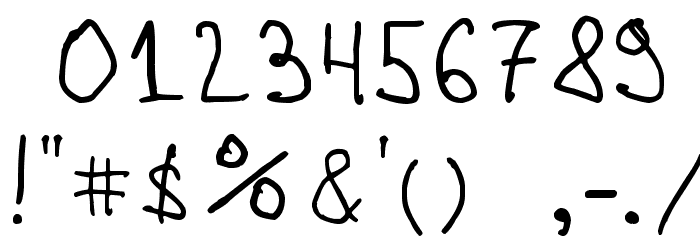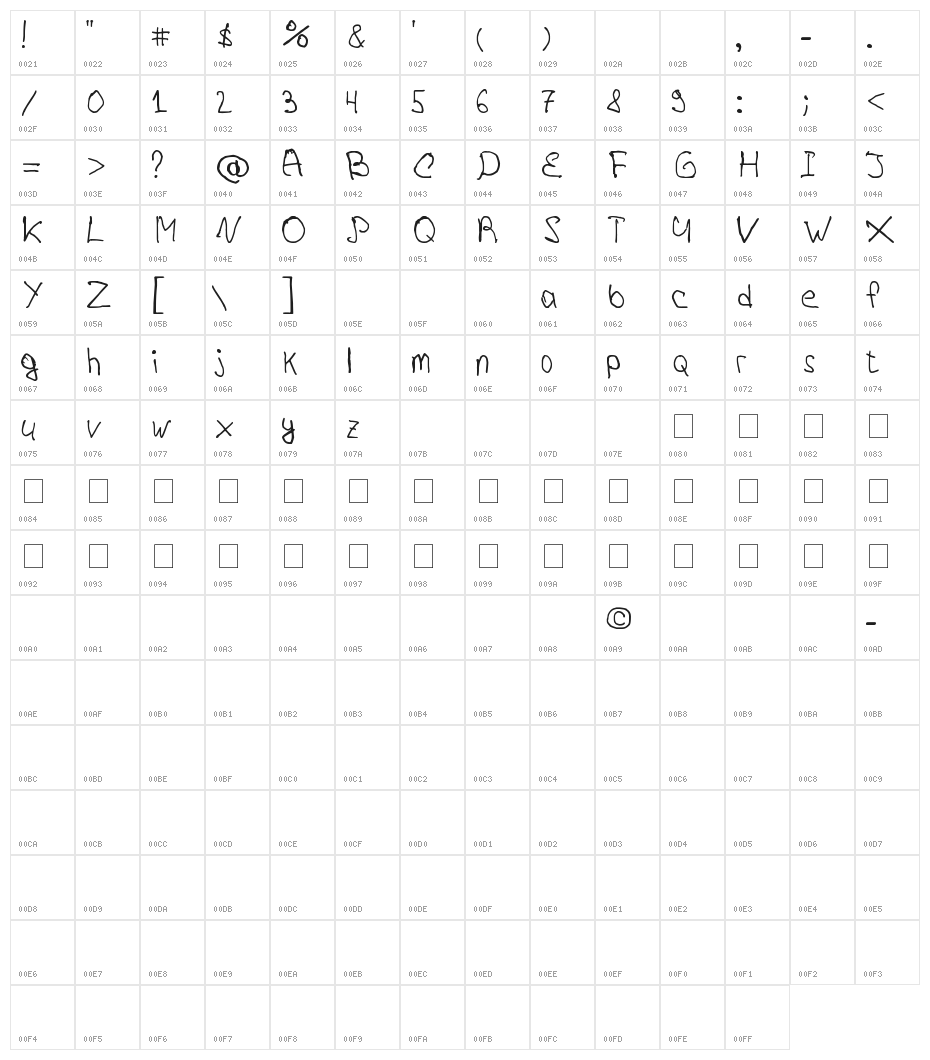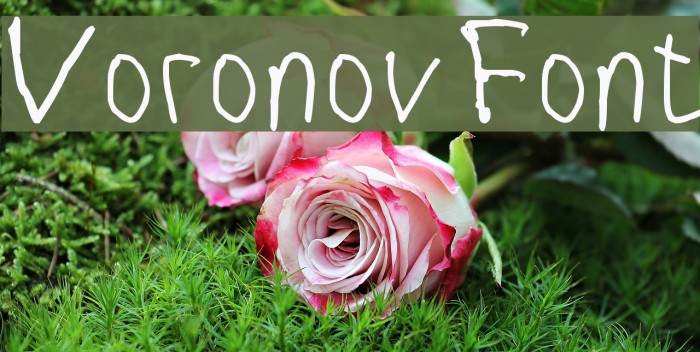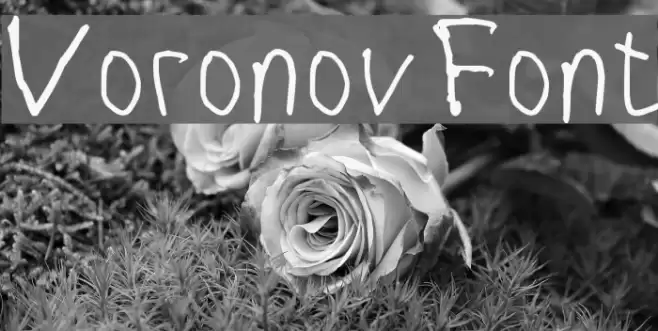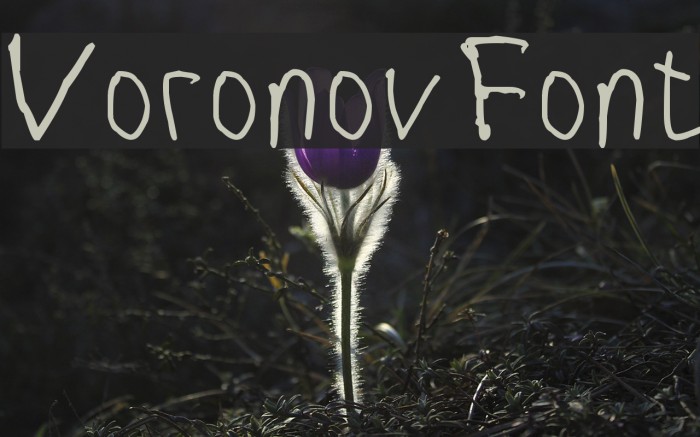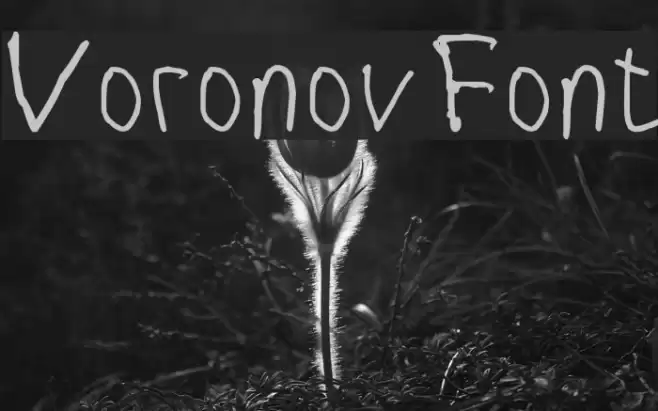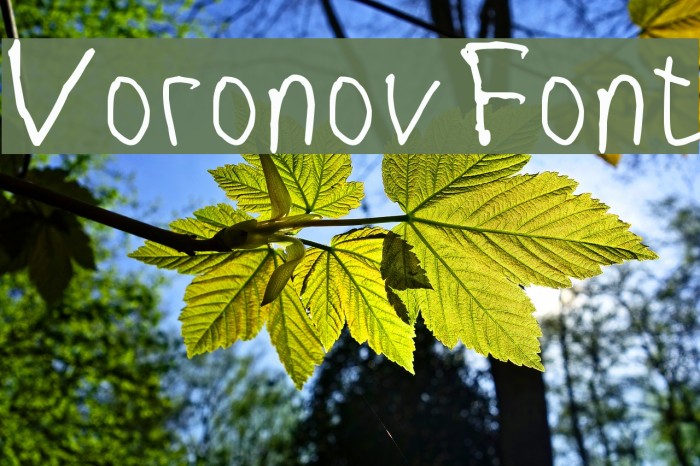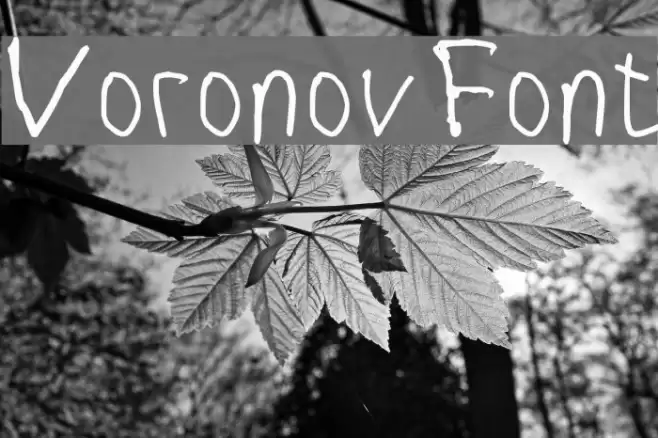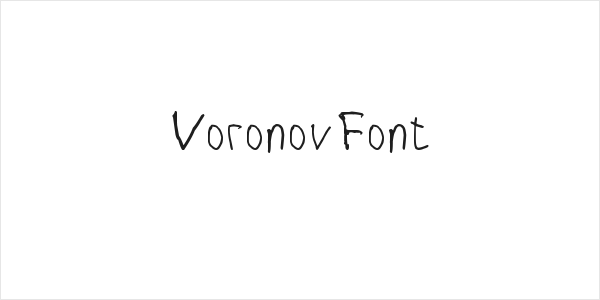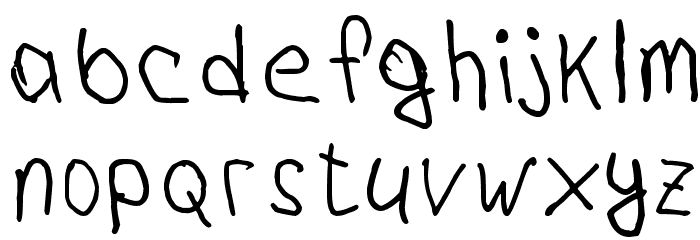
VoronovFont Font
VoronovFont Description
This font exhibits a playful and informal handwritten style, characterized by its irregular strokes and slightly uneven baseline. The letters have a casual, organic feel, with varying thickness in the strokes that adds to its charm. The uppercase and lowercase letters maintain a consistent style, while the numbers and special characters complement the overall aesthetic. The font's unique personality makes it suitable for creative projects where a personal touch is desired.